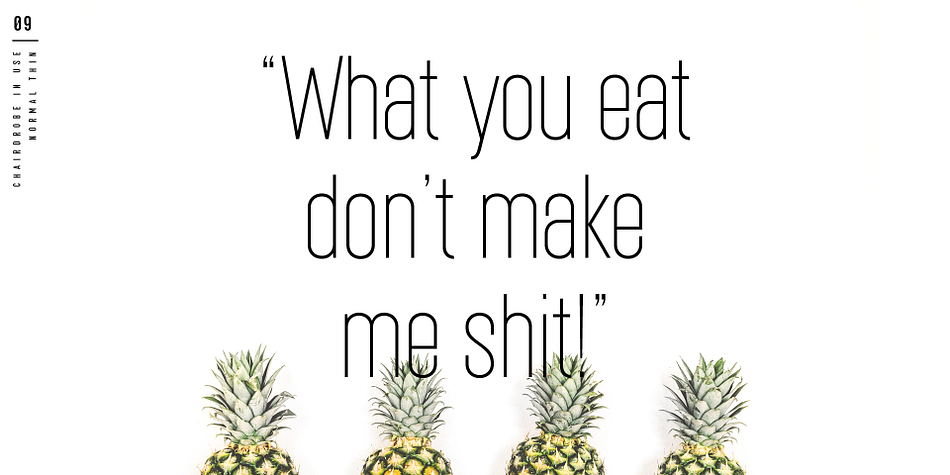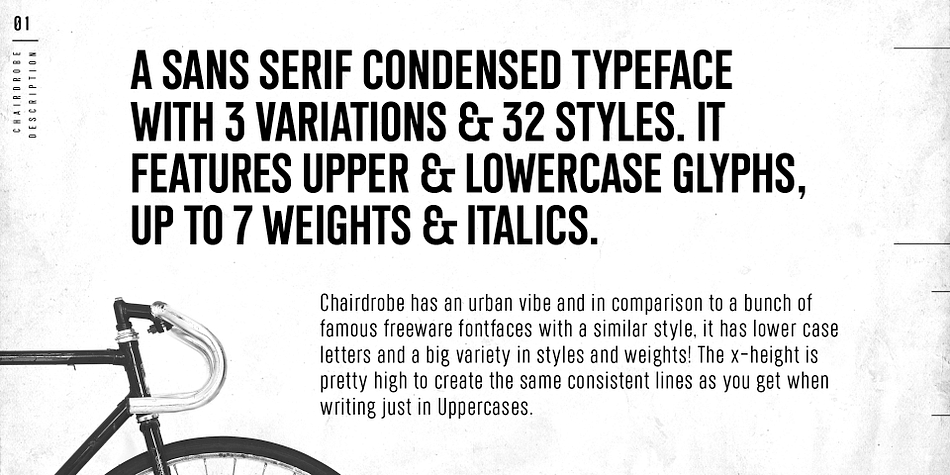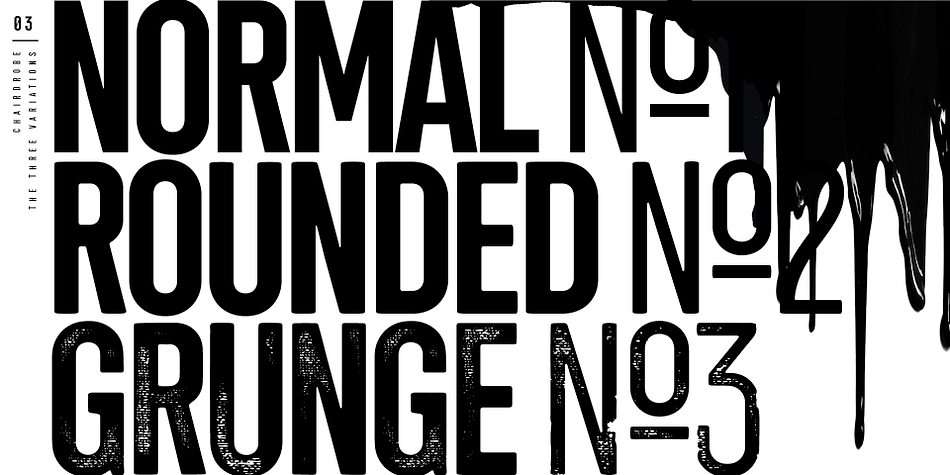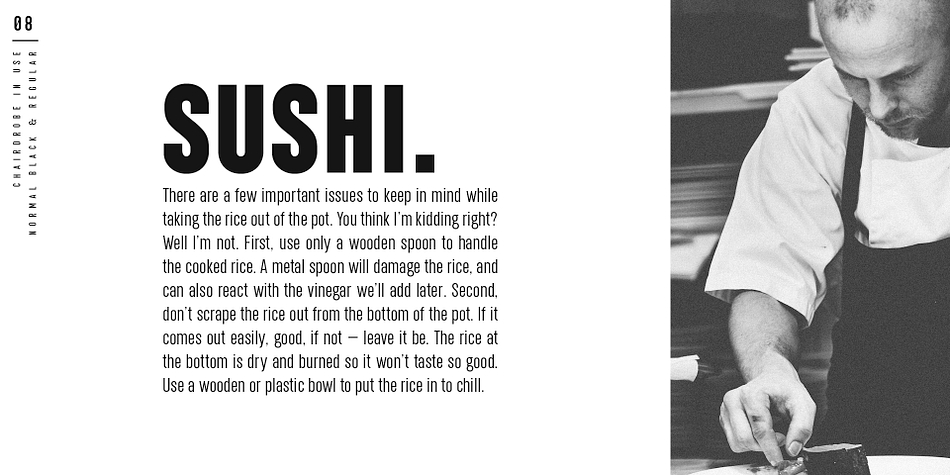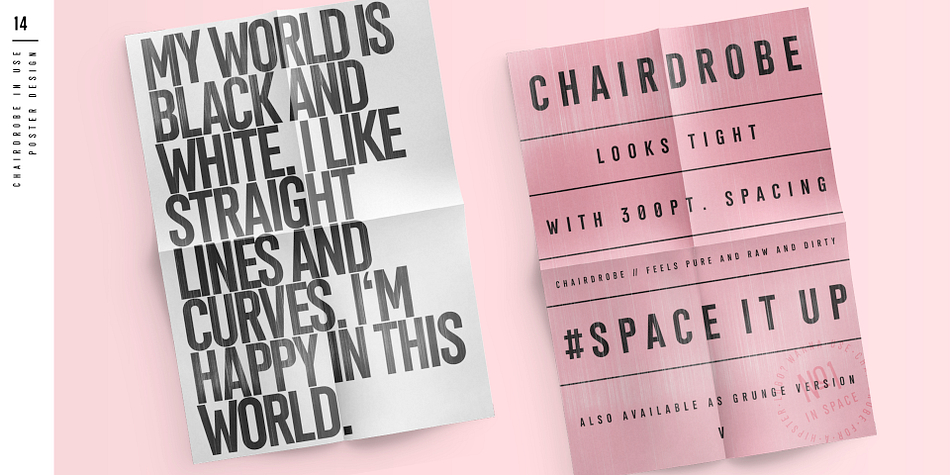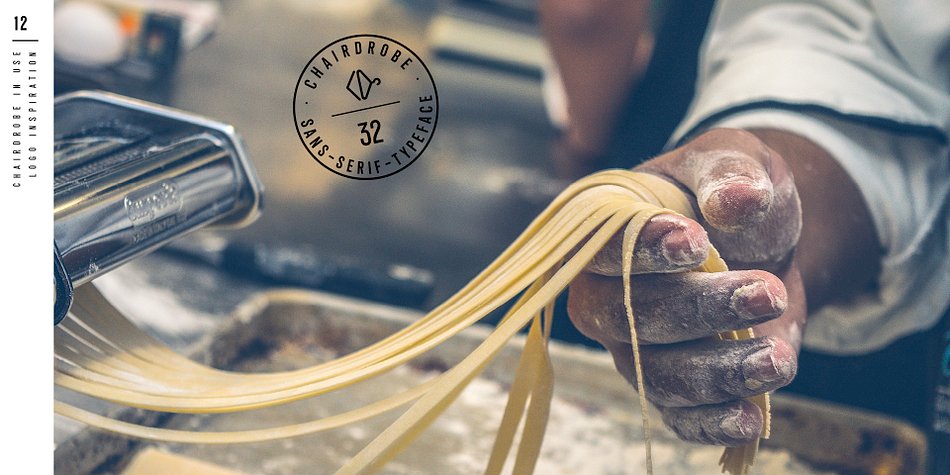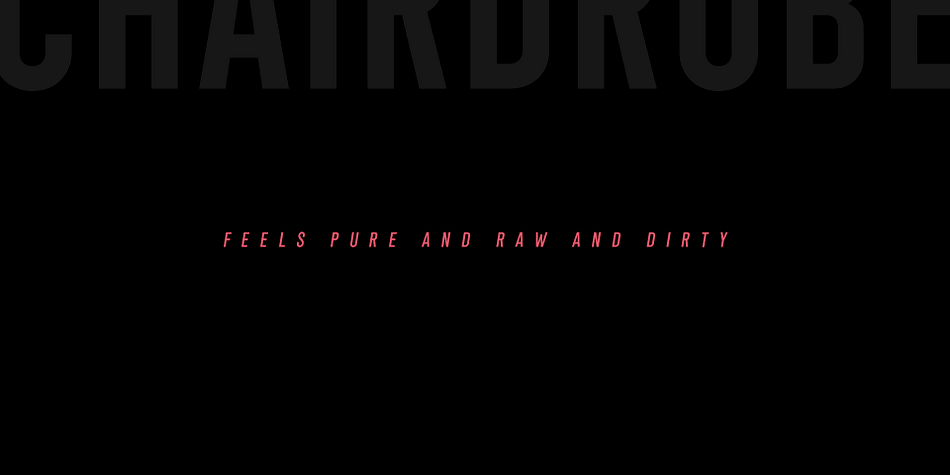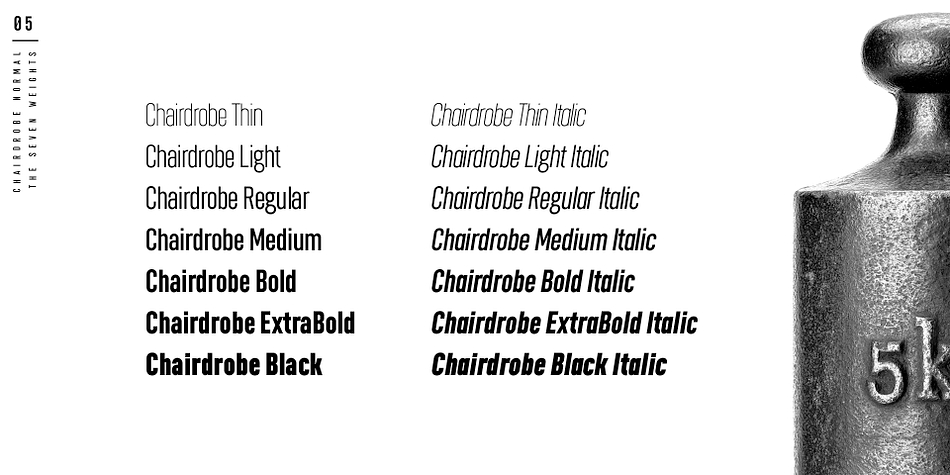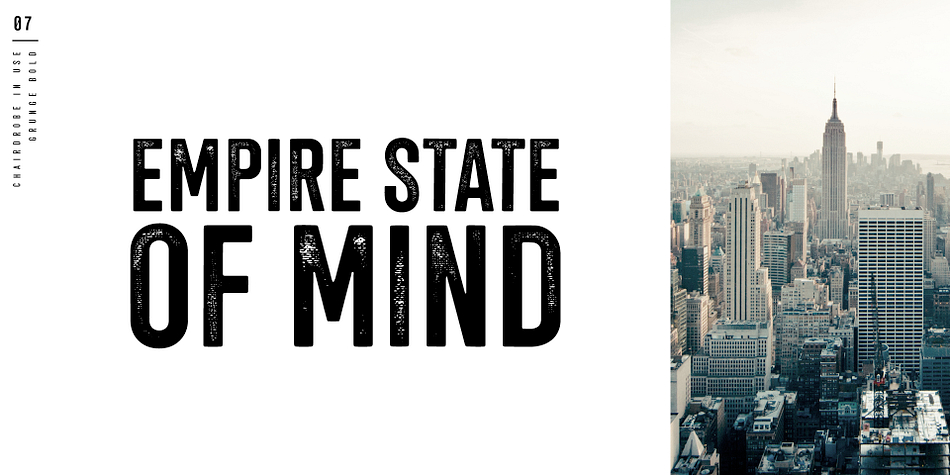
Chairdrobe is a grunge, sans serif and display sans font family. This typeface has thirty-two styles and was published by WRKSTT Graphicstudio.
Chairdrobe is minimalistic Typeface with a contemporary, urban Style. It feels pure, raw and a bit dirty. You can use it as Display Type as well as in longer text. Try to space it up. It looks super tight with a lot of spacing!
Chairdrobe is a sans-serif, condensed Typeface. Available in 3 different Variations – Normal, Rounded and Grunge. It features Upper and Lowercase Letters and up to 7 Weights and Italics.